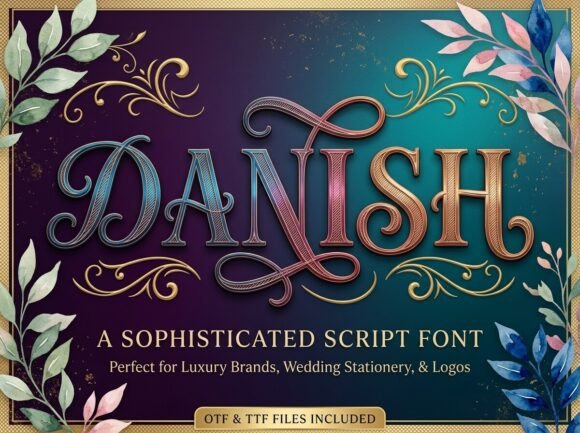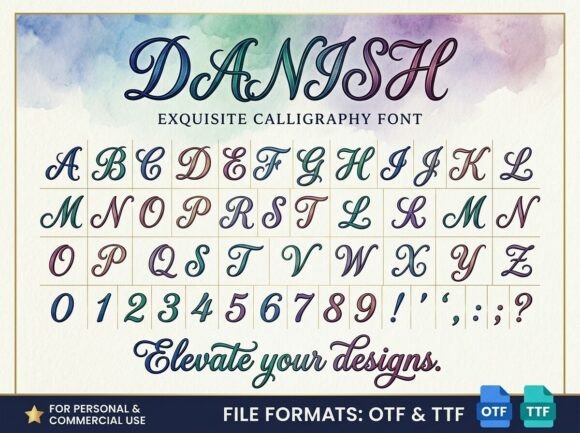
Exude Timeless Luxury with Danish: The Ultimate Calligraphy Font
Are you a designer or crafter looking to add a touch of sophistication and elegance to your luxury branding, gala invitations, or signature logos? Look no further than Danish, an exquisite and authentic calligraphy font designed to exude timeless luxury. With its fluid, hand-drawn strokes and rich, gold-foil texture effect, Danish is the perfect choice for those who require old-world elegance with a modern, professional finish.
The Characteristics of Danish Font
Danish font is characterized by its unique blend of traditional and modern elements. Its fluid, hand-drawn strokes give it a personal and human touch, while its rich, gold-foil texture effect adds a sense of luxury and sophistication. The font’s deep velvet background provides a stunning contrast to the gold-foil texture, making it perfect for designs that require a high-end appeal.
Uses of Danish Font
Danish font is incredibly versatile and can be used in a variety of design applications. Some of the most popular uses of Danish font include:
- Luxury branding: Danish font is perfect for creating high-end logos, business cards, and letterheads that exude sophistication and elegance.
- Gala invitations: Whether you’re planning a wedding, charity gala, or corporate event, Danish font is the perfect choice for creating beautiful and elegant invitations.
- Signature logos: Danish font can be used to create stunning signature logos that add a touch of luxury and sophistication to any design.
Benefits of Using Danish Font
There are many benefits to using Danish font in your designs. Some of the most significant advantages include:
- Unique and elegant design: Danish font offers a unique and elegant design that is sure to turn heads.
- High-end appeal: The font’s rich, gold-foil texture effect and deep velvet background give it a high-end appeal that is perfect for luxury branding and gala invitations.
- Versatility: Danish font is incredibly versatile and can be used in a variety of design applications.
Tips for Using Danish Font
Here are a few tips for using Danish font in your designs:
- Use it sparingly: Danish font is a luxurious font that should be used sparingly to maximize its impact.
- Pair it with simple backgrounds: Danish font looks best against simple backgrounds that allow the font to take center stage.
- Experiment with different colors: While the gold-foil texture effect is stunning, you can also experiment with different colors to create unique and eye-catching designs.
In conclusion, Danish font is an exquisite and authentic calligraphy font that is perfect for designers and crafters who require old-world elegance with a modern, professional finish. With its fluid, hand-drawn strokes and rich, gold-foil texture effect, Danish font is sure to exude timeless luxury and sophistication in any design. Whether you’re creating luxury branding, gala invitations, or signature logos, Danish font is the definitive choice for those who demand the best.
Here are a few frequently asked questions about Danish font:
- What is Danish font?
Danish font is an exquisite and authentic calligraphy font designed for high-end appeal. - What is Danish font used for?
Danish font is used for luxury branding, gala invitations, signature logos, and other design applications that require a high-end appeal. - Is Danish font easy to use?